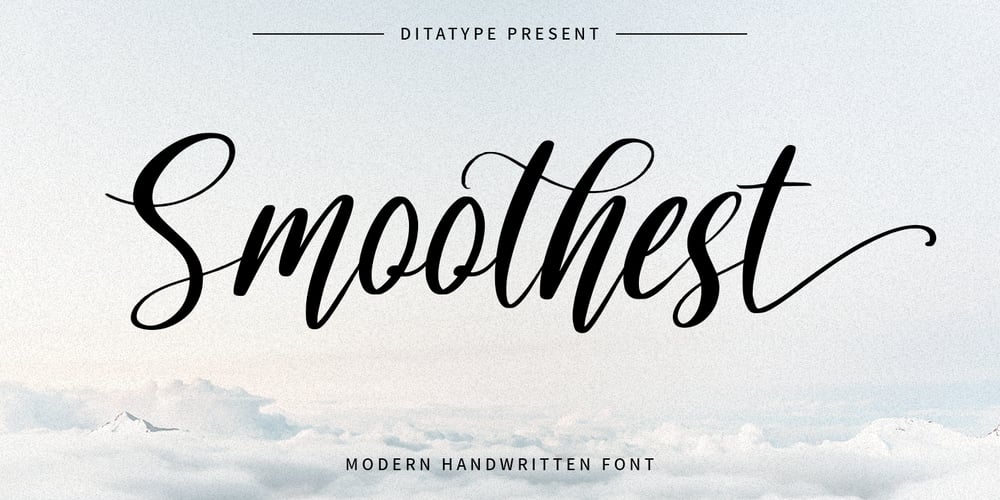
Smoothest Font Family was designed by Donis Miftahudin and published by Ditatype. Smoothest contains 1 styles and family package options. Smoothest is a modern handwritten font. With a classy and natural handwritten style, it brings a classy and chic typeface. Smoothest is best used for weddings, branding, logotype, and quotes.Features: – Beautiful Ligatures – Beautiful Swash – PUA Encoded – Multilingual Support – Numerals and Punctuation